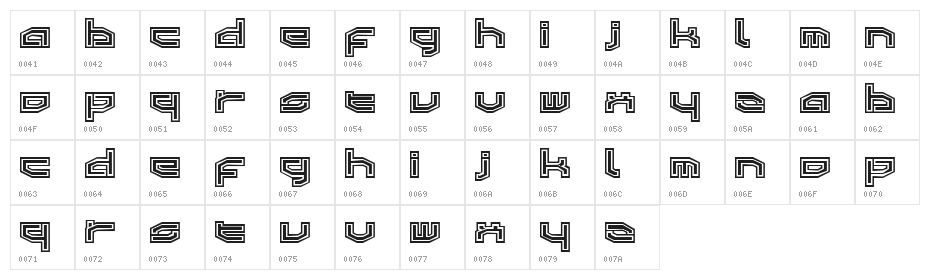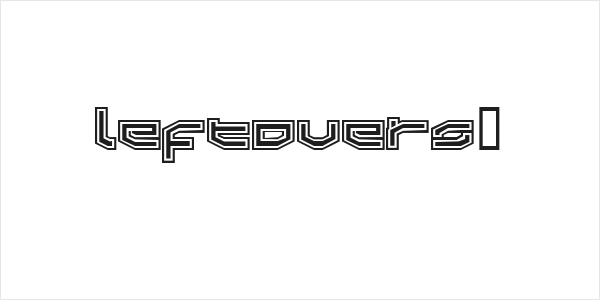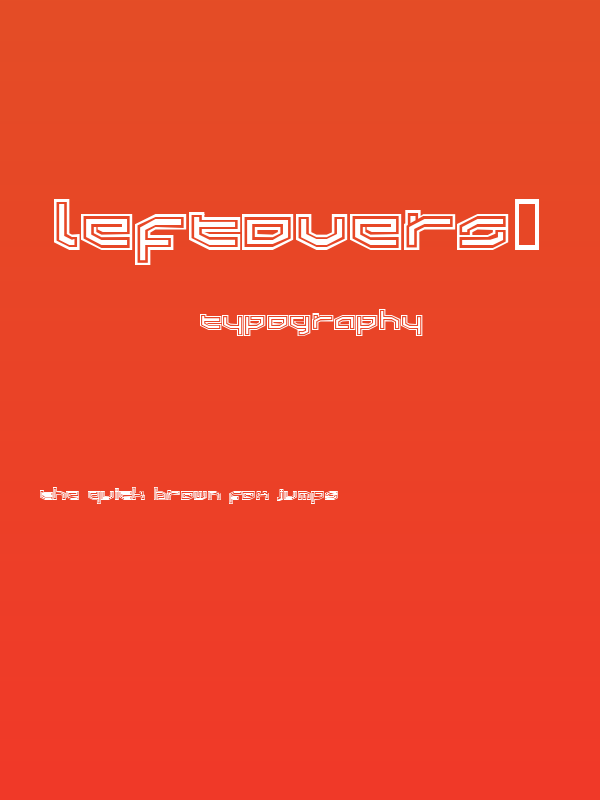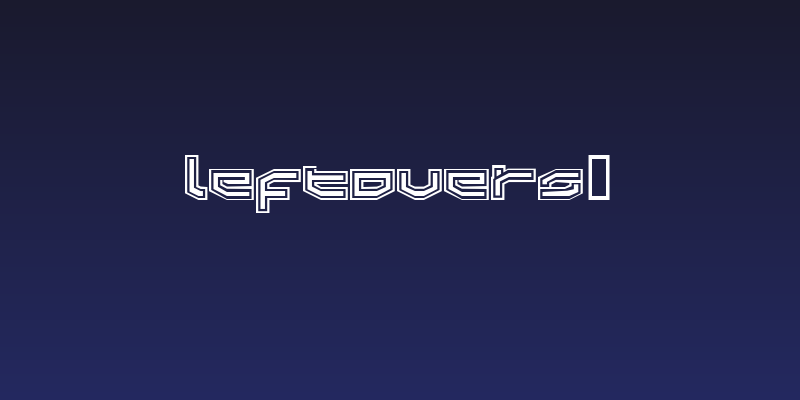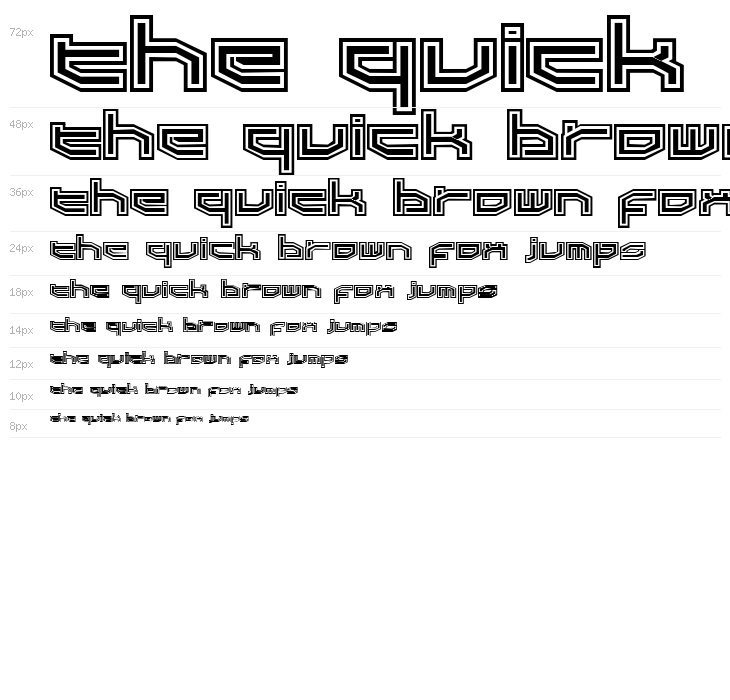
LeftOvers2 Font
LeftOvers2 Description
This font features a bold, geometric design with a distinct outline style that gives it a futuristic and digital appearance. The characters are constructed with sharp angles and straight lines, creating a sense of precision and modernity. The uppercase and lowercase letters maintain a consistent height, contributing to a uniform and cohesive look. The numbers and special characters follow the same design principles, ensuring a seamless integration across all elements. The font's unique style makes it stand out, ideal for projects that require a modern and edgy aesthetic.
| Proposed Projects | Ideal for digital art, tech branding, video game titles, and sci-fi themed projects. |